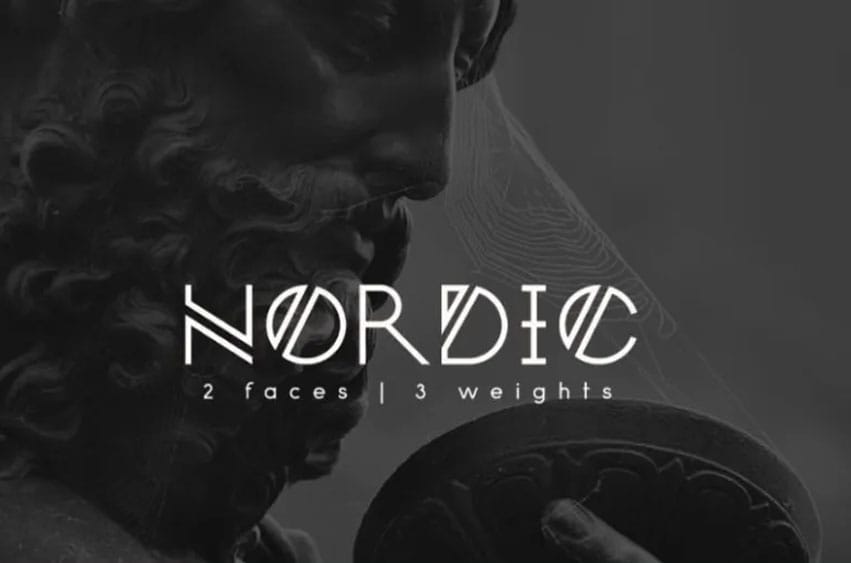
Nordic Free Font is an experimental font based on Norwegian Runes that would be suitable for Headline usage, Logotypes, Posters for t-shirts, or headline graphics, amongst others.